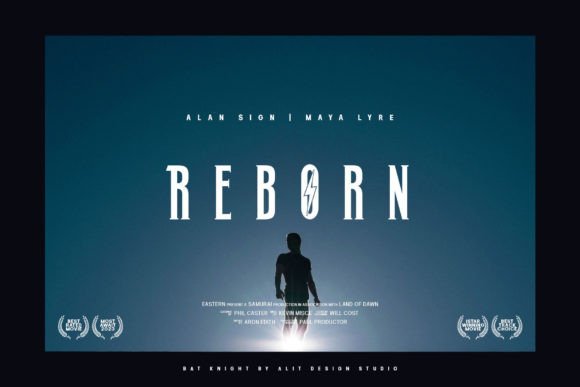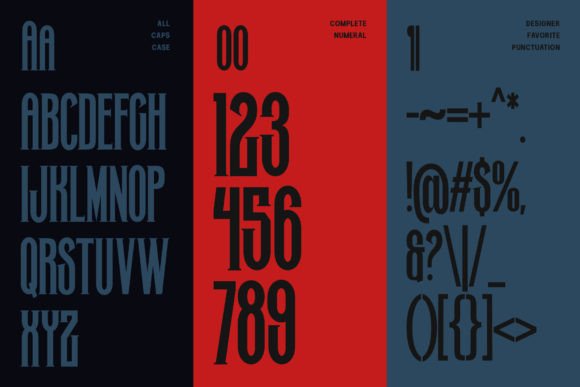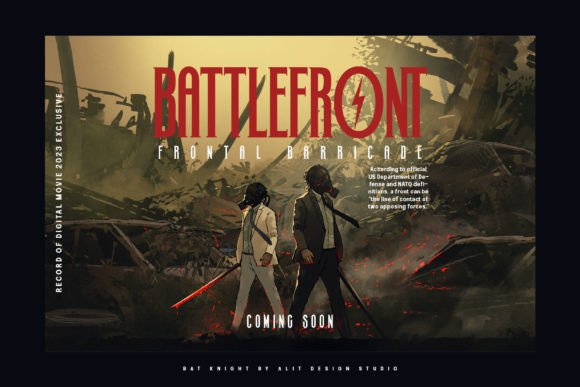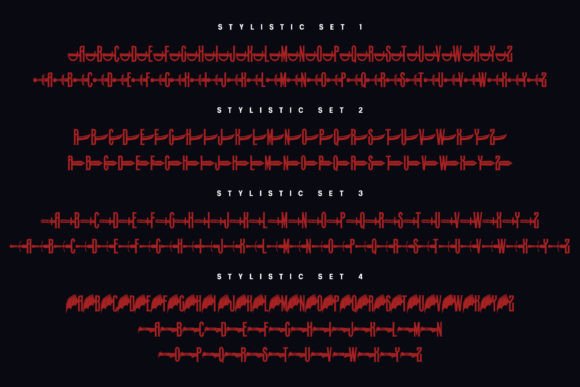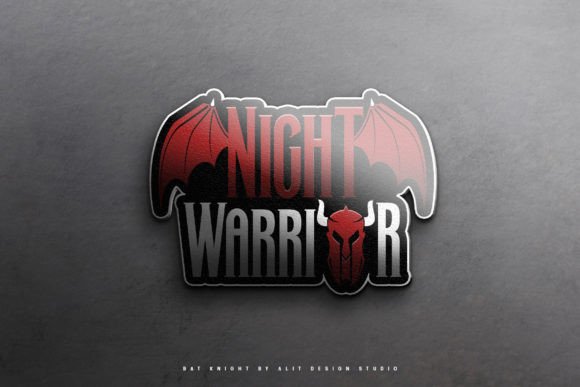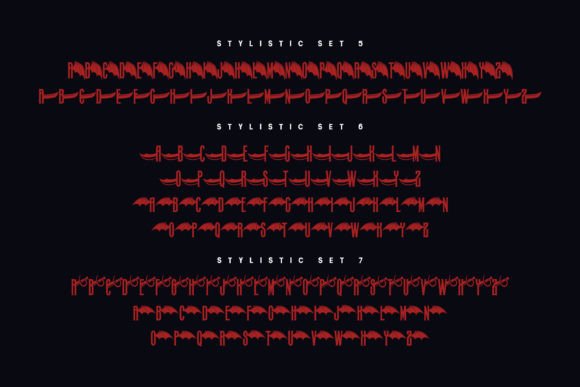
Presenting ⚔️The Bat Knight Typeface⚔️: Unleash Your Heroic Designs
Are you a designer or crafter looking for a font that embodies the essence of heroism and bravery? Look no further than the Bat Knight font, a bold and striking typeface inspired by action movie posters featuring war or knights in the night. This magnificent font is perfect for creating hero movie titles, game titles, logotypes, Halloween themes, t-shirt designs, and any other project that requires a heroic touch.
The Inspiration Behind Bat Knight Font
The Bat Knight font draws its inspiration from the world of action-packed movies and games, where heroes rise to save the day. The font’s design is reminiscent of the dramatic and bold typography often seen in movie posters, with a strong emphasis on powerful lines and heroic silhouettes. The result is a font that exudes confidence, courage, and a sense of adventure.
Key Features of Bat Knight Font
- Bold Character: The Bat Knight font boasts a bold and sturdy character that commands attention and evokes a sense of heroism.
- Swashes and Symbols: The Bat Knight font comes with a range of swashes and symbols that can be combined to create unique and eye-catching designs, perfect for adding a heroic touch to your projects.
- Versatility: This font is suitable for a wide range of applications, from movie titles and game titles to logotypes, Halloween themes, t-shirt designs, and more.
Use Cases for Bat Knight Font
The Bat Knight font is an incredibly versatile typeface that can be used in various design projects, including:
- Movie Titles: Create bold and eye-catching titles for action movies, superhero films, or any other project that requires a heroic touch.
- Game Titles: Use the Bat Knight font to create memorable and impactful titles for games, especially those with a heroic or action-packed theme.
- Logotypes: Design stunning logotypes for companies or brands that want to convey a sense of strength, courage, and heroism.
- T-Shirt Designs: Create striking t-shirt designs for Halloween themes, heroic-themed apparel, or any other project that requires a bold and eye-catching font.
Tips for Using Bat Knight Font
To get the most out of the Bat Knight font, here are some tips to keep in mind:
- Experiment with Swashes: Take advantage of the font’s swashes and symbols to add a unique touch to your designs.
- Combine with Other Fonts: Try pairing the Bat Knight font with other fonts to create interesting and dynamic typography.
- Play with Colors: Experiment with different colors and textures to add depth and visual interest to your designs.
The Bat Knight font is an exceptional typeface that embodies the spirit of heroism and bravery. With its bold character, PUA encoding, and range of swashes and symbols, this font is perfect for designers and crafters looking to create stunning designs that convey a sense of strength and courage. Whether you’re working on a movie title, game title, logotype, or t-shirt design, the Bat Knight font is sure to make your project stand out.